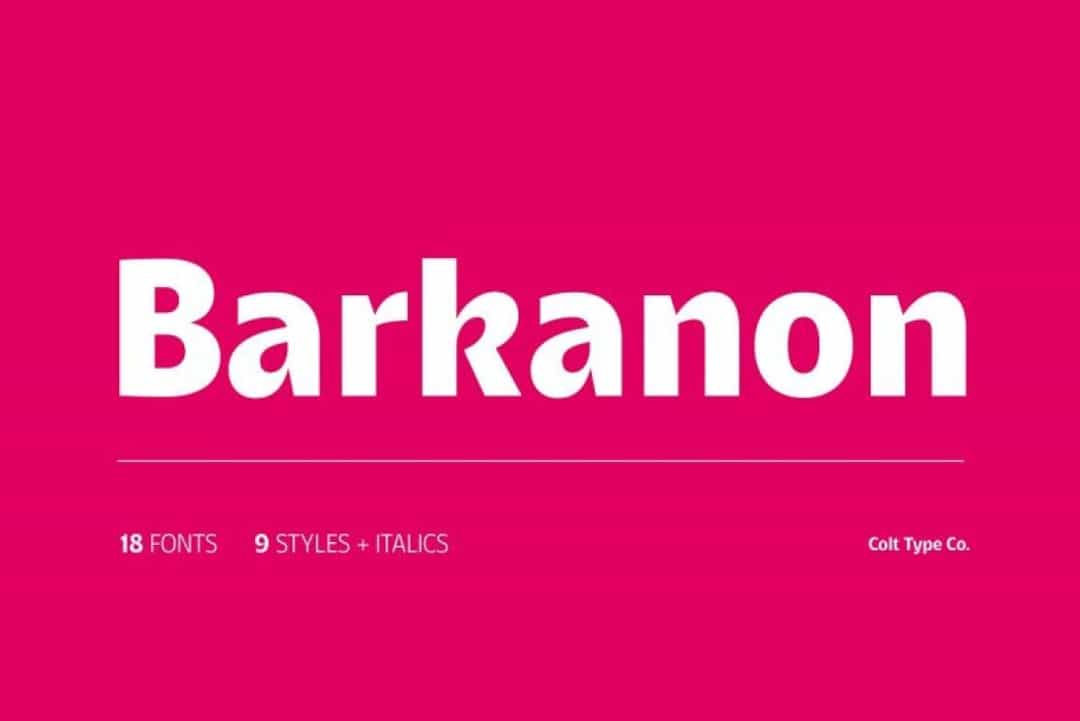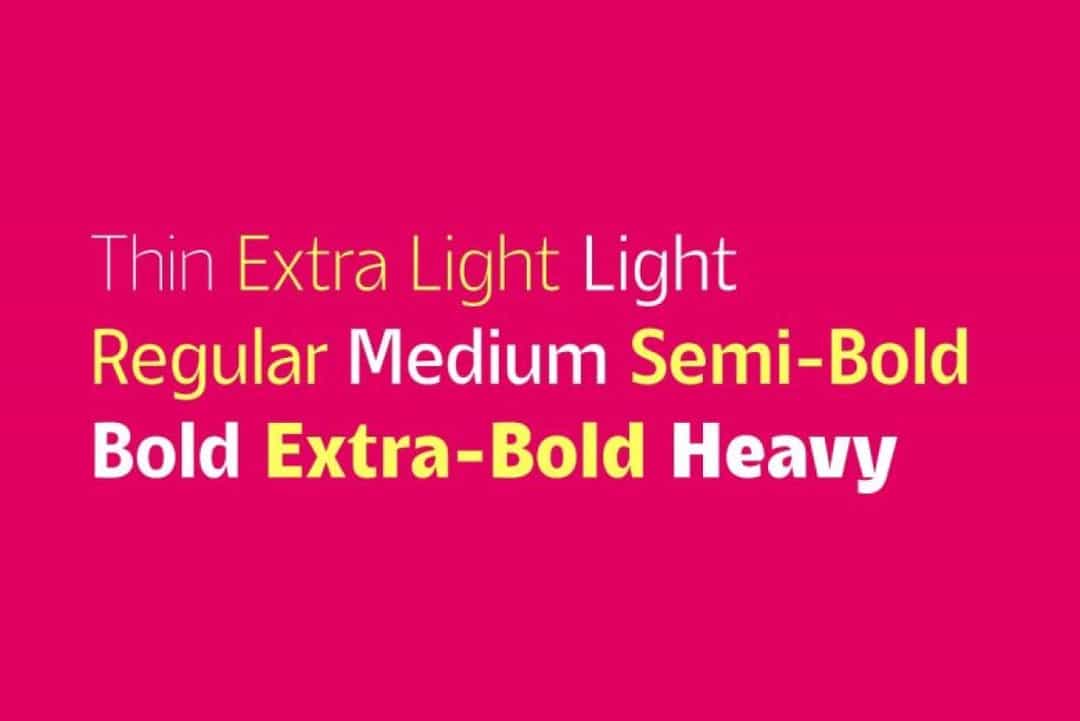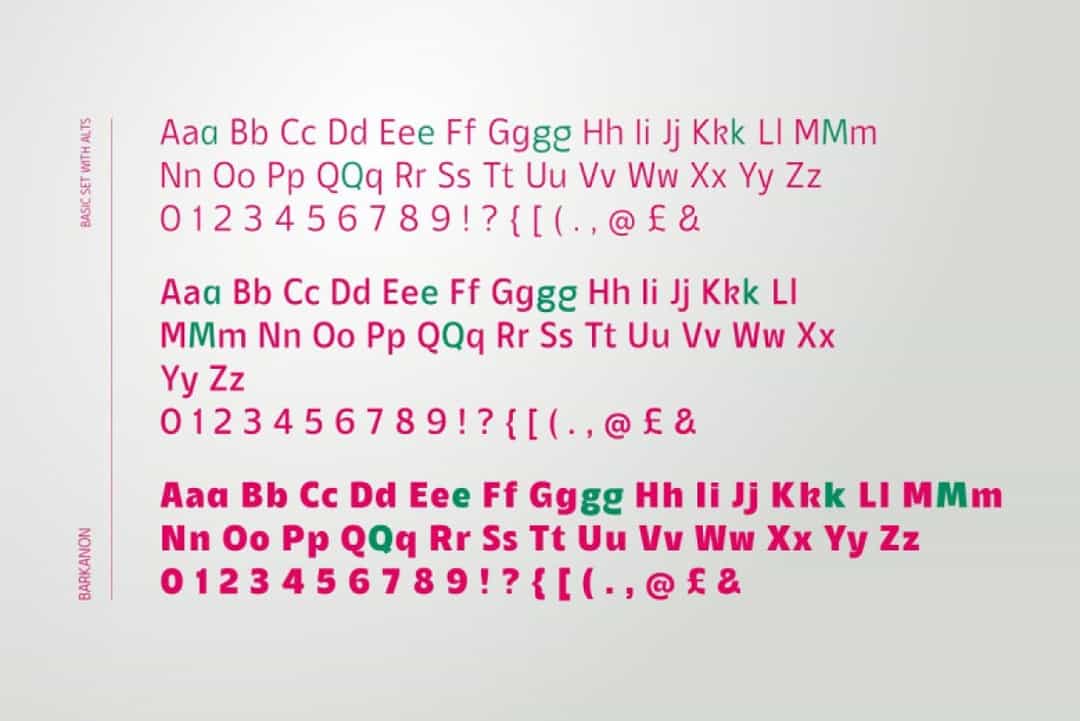
Barkanon stands out as an unconventional humanist sans serif typeface, combining contemporary styling with classical humanist design for an eye-catching and captivating appearance. Specifically crafted to make eye-catching statements where necessary and accessible when necessary.